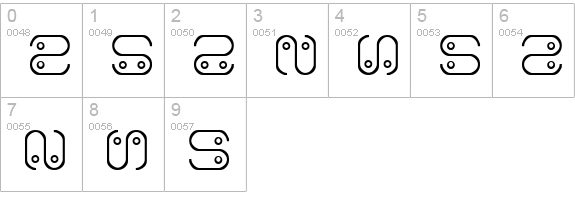
Alien Language Font Details
The Alien Language font is a unique and futuristic typeface that will transport your designs to another dimension. With its otherworldly characters and mysterious symbols, this font is perfect for projects that require an out-of-this-world touch. The sleek and edgy design of the Alien Language font will captivate your audience and add a sense of intrigue to your work. Best of all, the Alien Language font is available for free download at FontsMarket.com! That's right, you can easily access this captivating font and incorporate it into your projects without any cost. Elevate your designs with the Alien Language font and let your creativity soar to new heights.